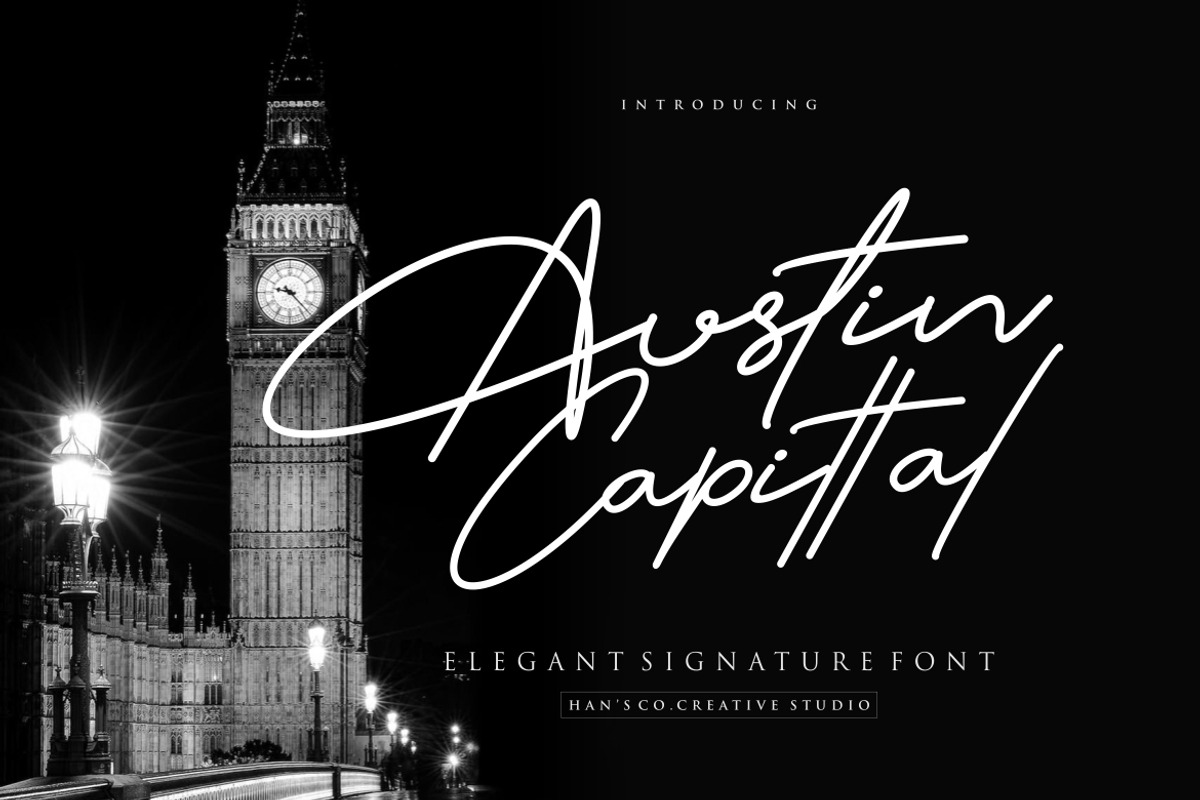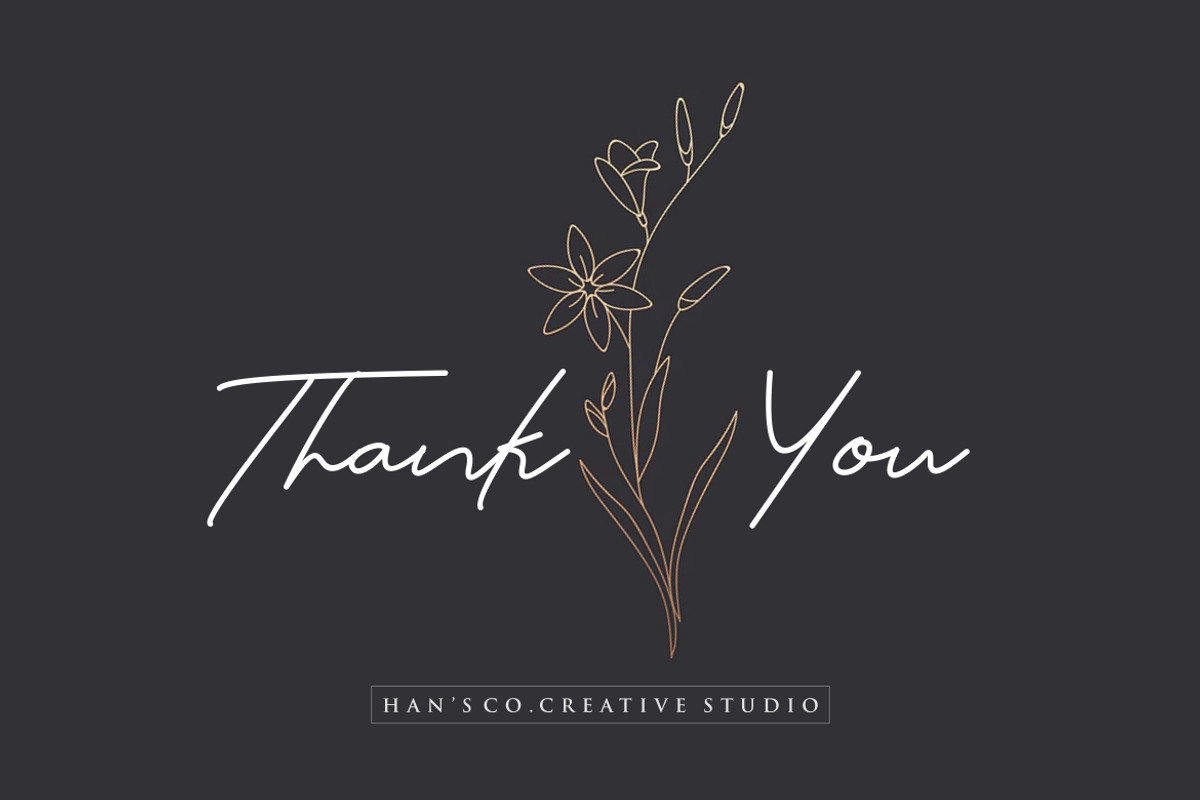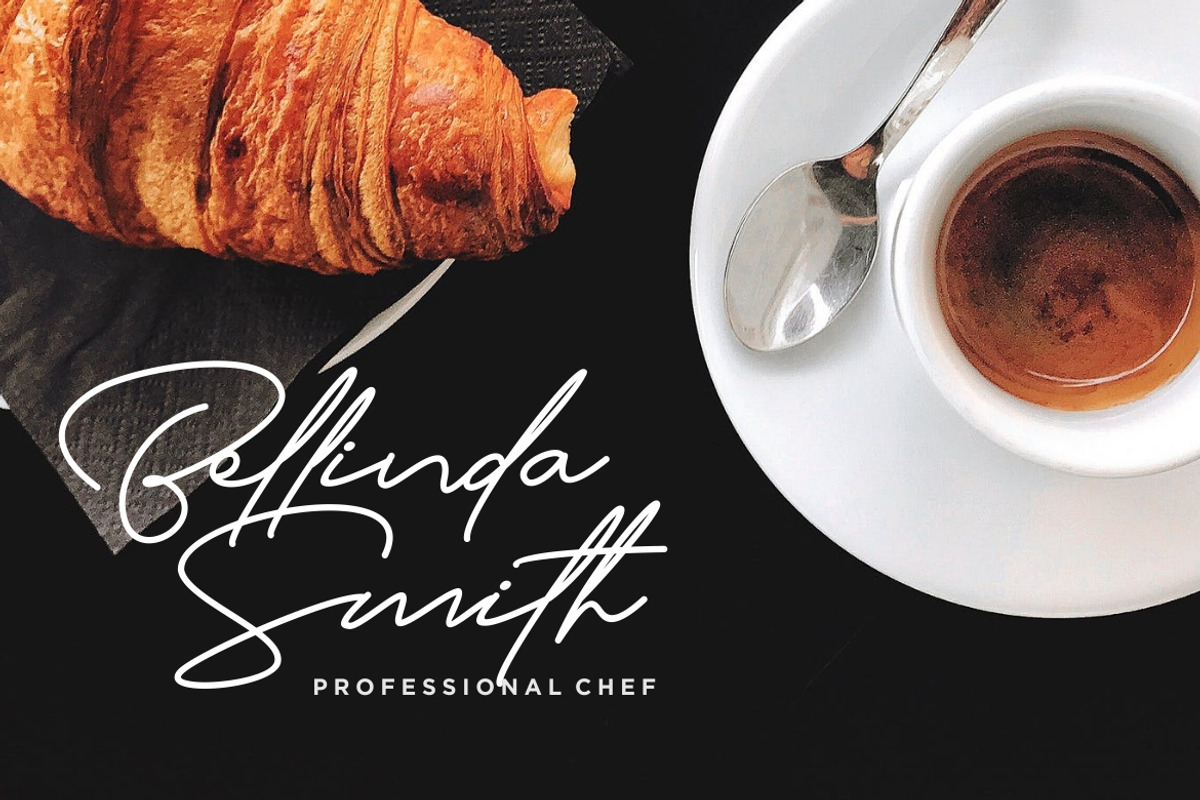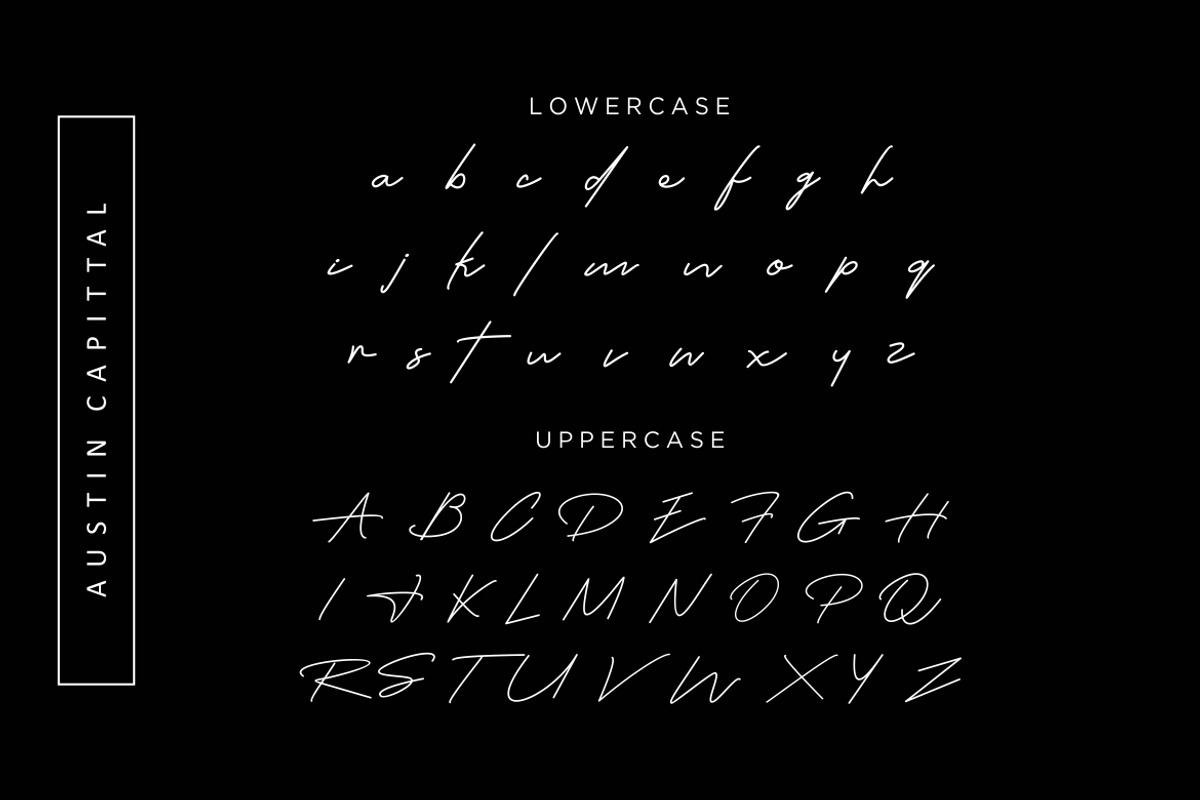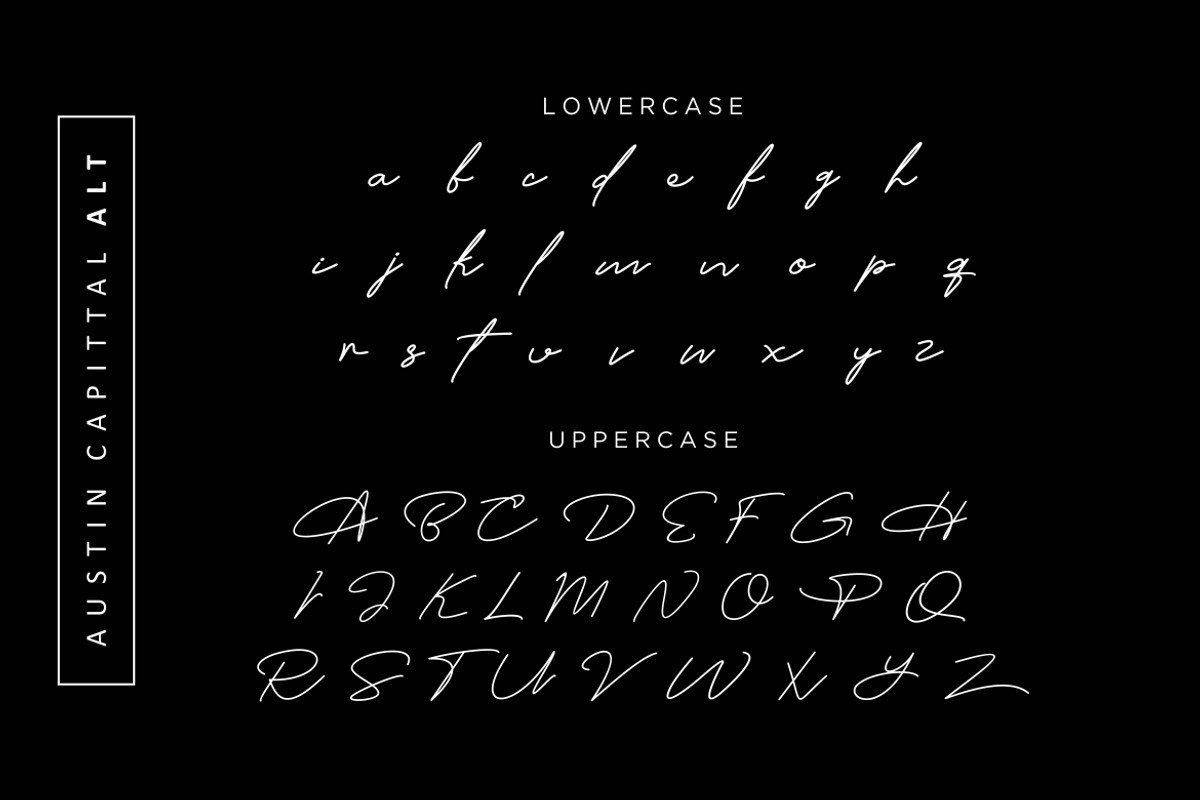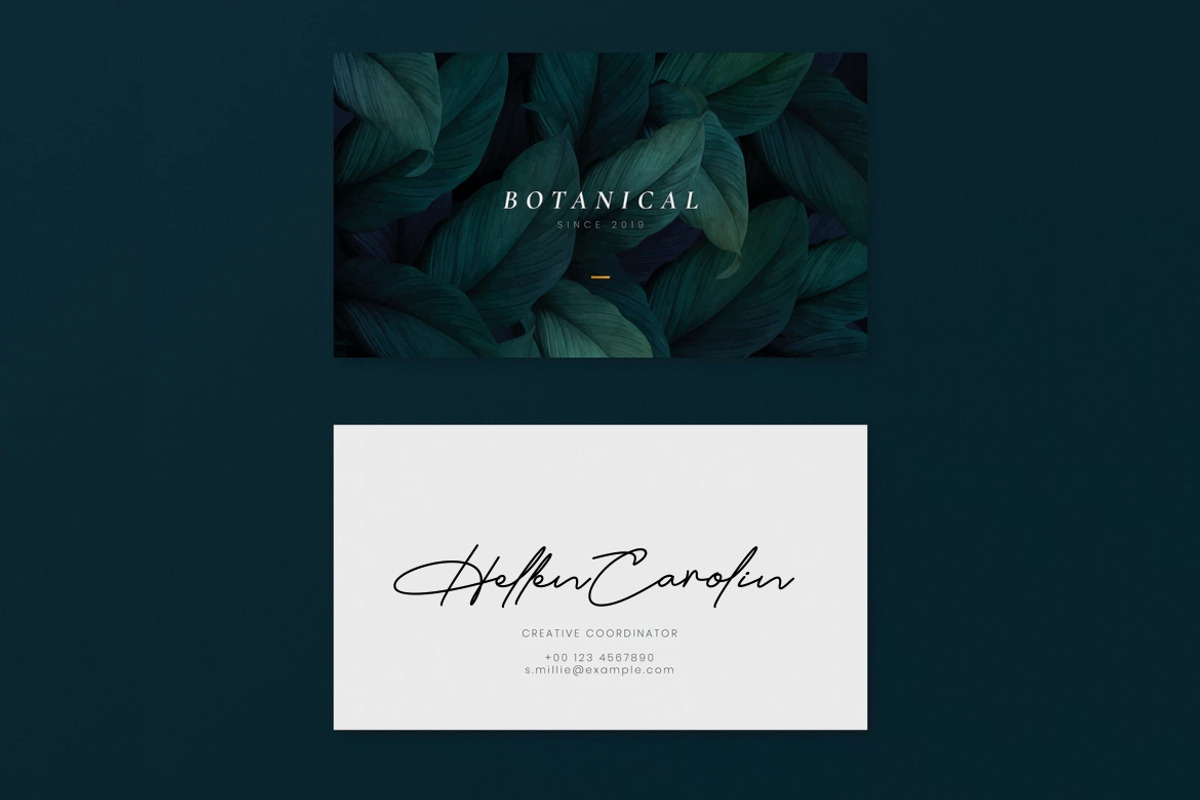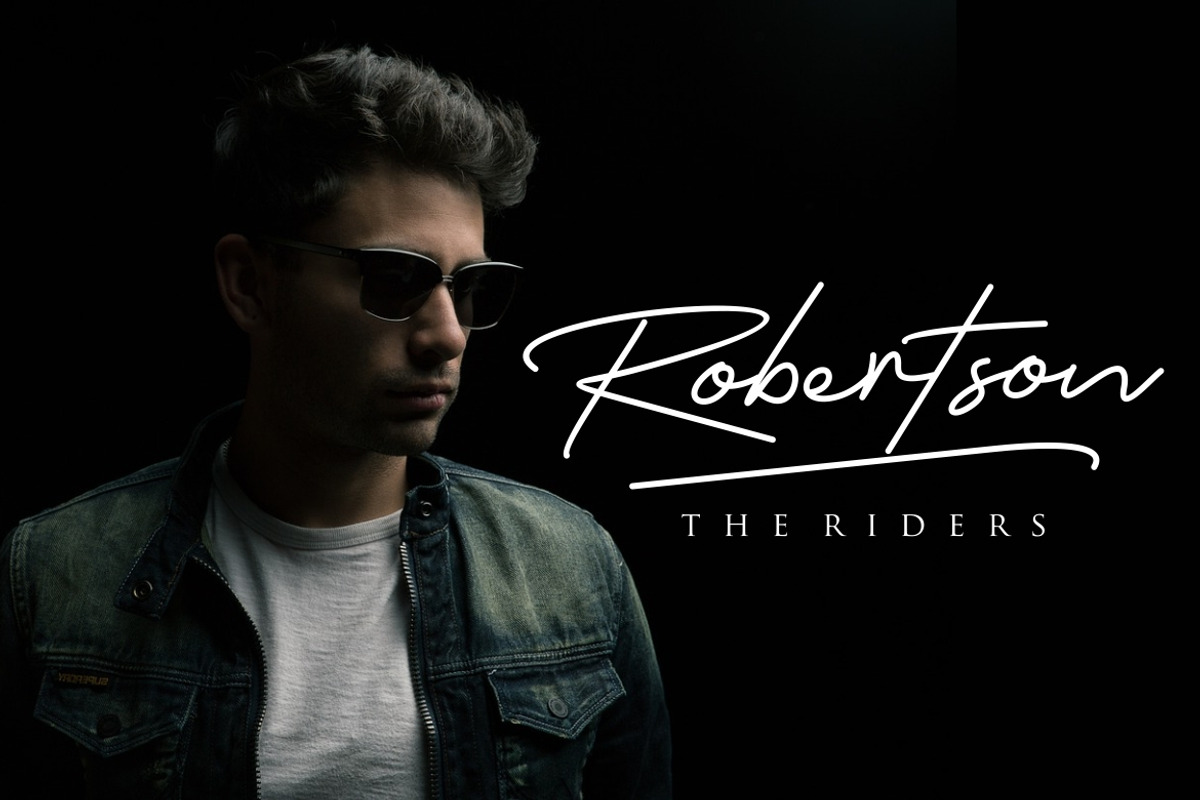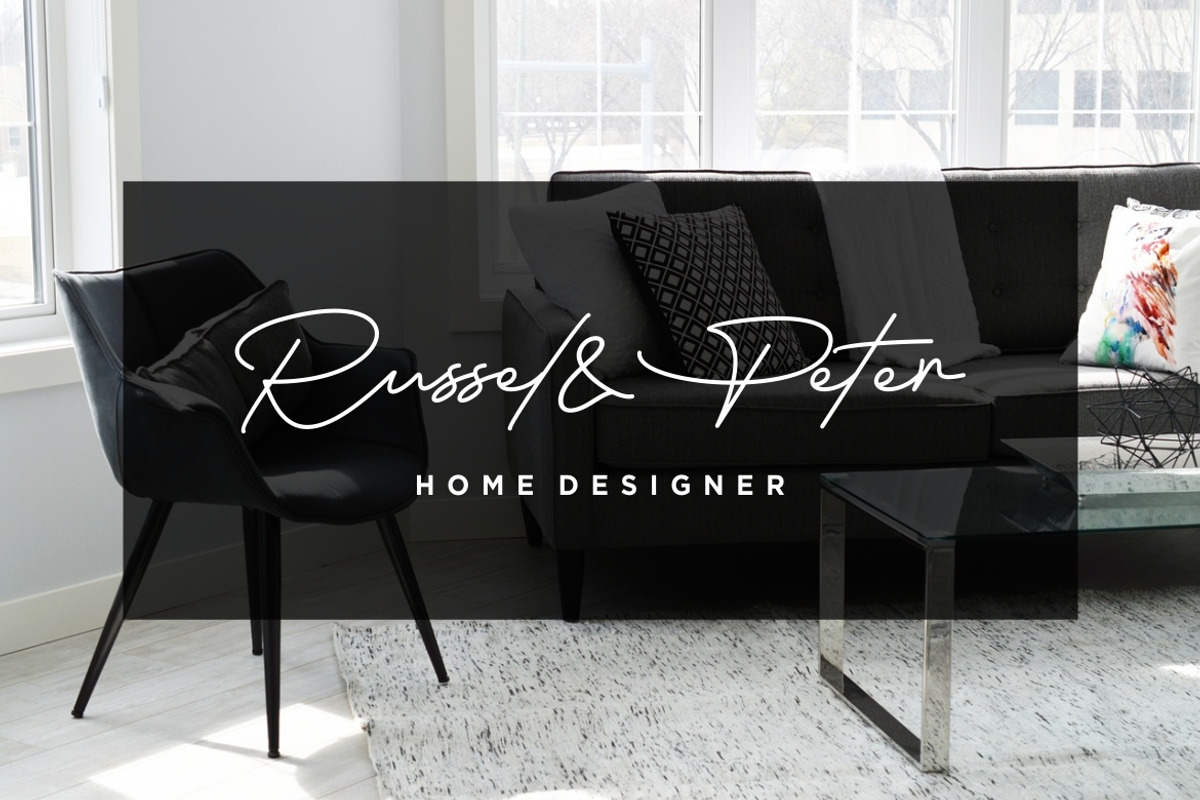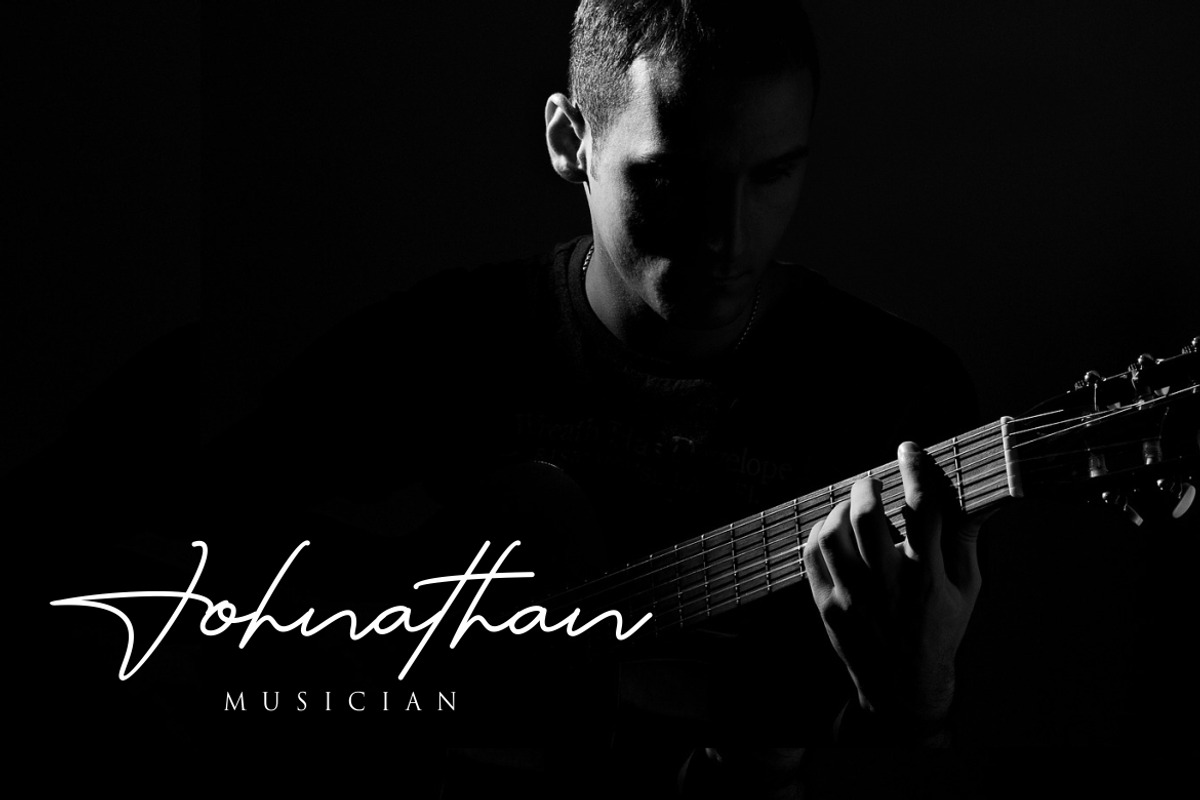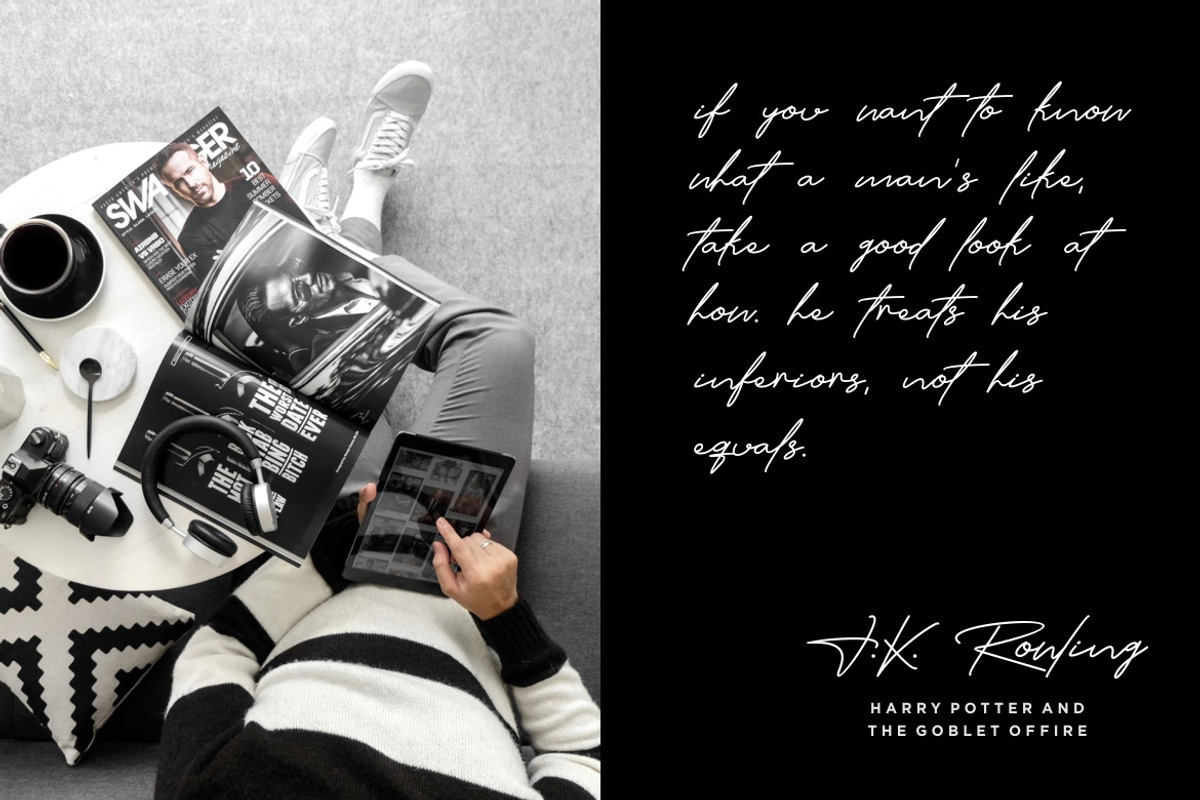
Austin Capittal - Signature Font
Austin Capittal Font is an elegant handwritten signature with a natural & stylish flow. It was made with the intention to be used by Photographers as a watermark for their Photography Business. This font Recommended to use in Graphic design Software like Adobe, Coreldraw, inkscape etc.